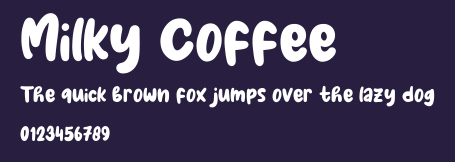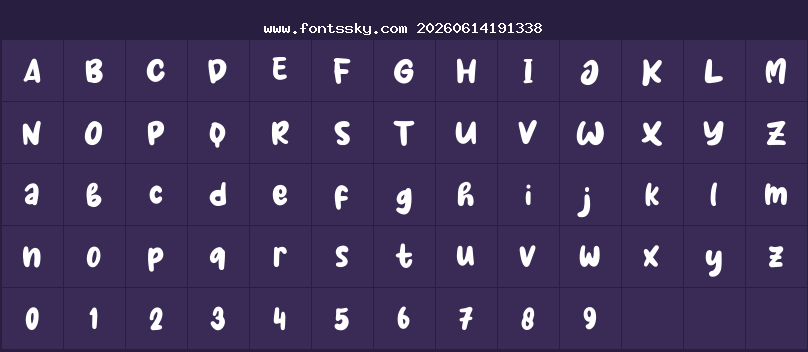
Milky Coffee Preview
• Font Name: Milky Coffee
• Full Font Name: Milky Coffee
• PostScript Name: Milky Coffee
• Designer: Khurasan
• Manufacturer: Khurasan
About Milky Coffee.ttf
Milky Coffee.ttf is a modern, elegant sans-serif font designed for ultimate readability and visual harmony. Perfect for branding, headlines, web design, and print materials.